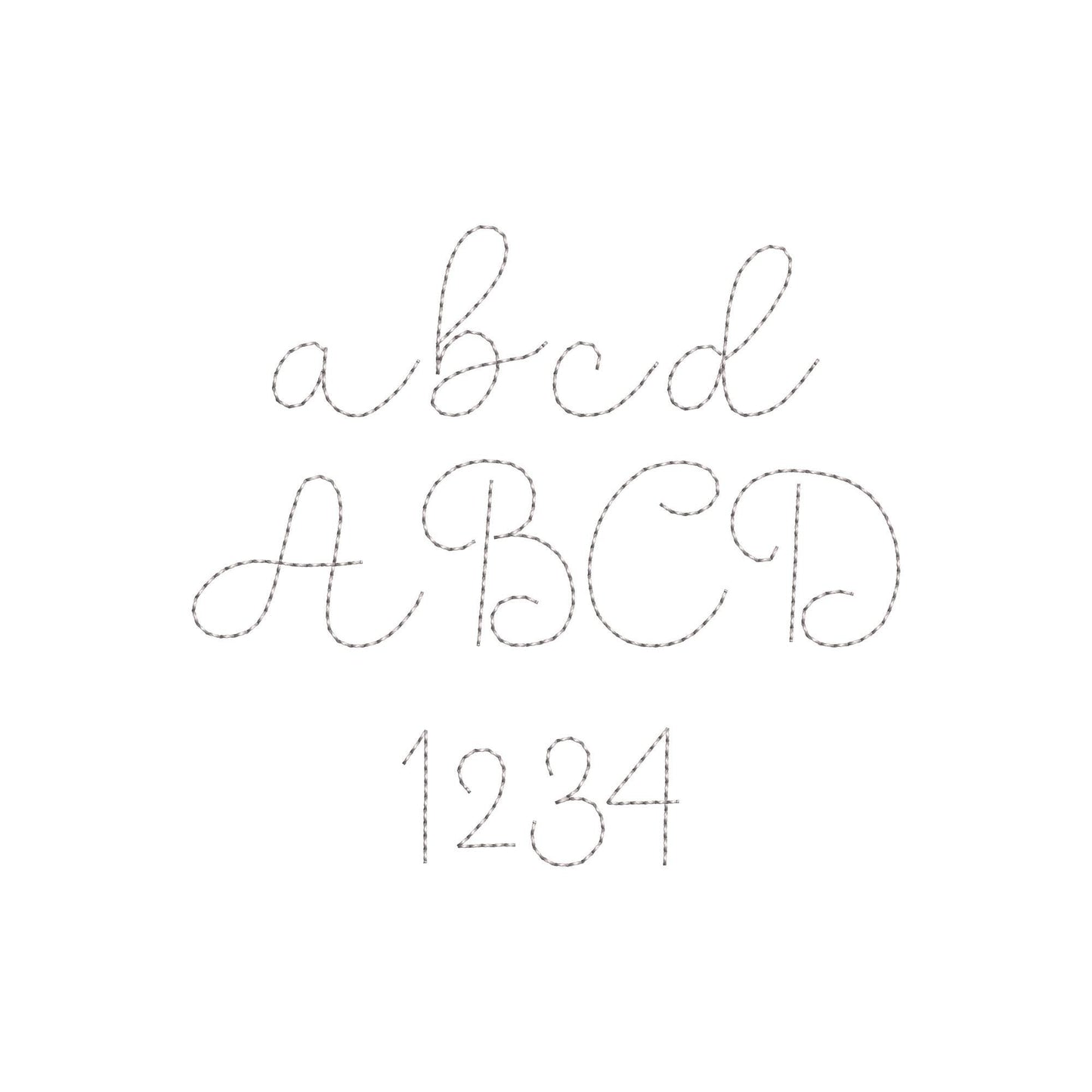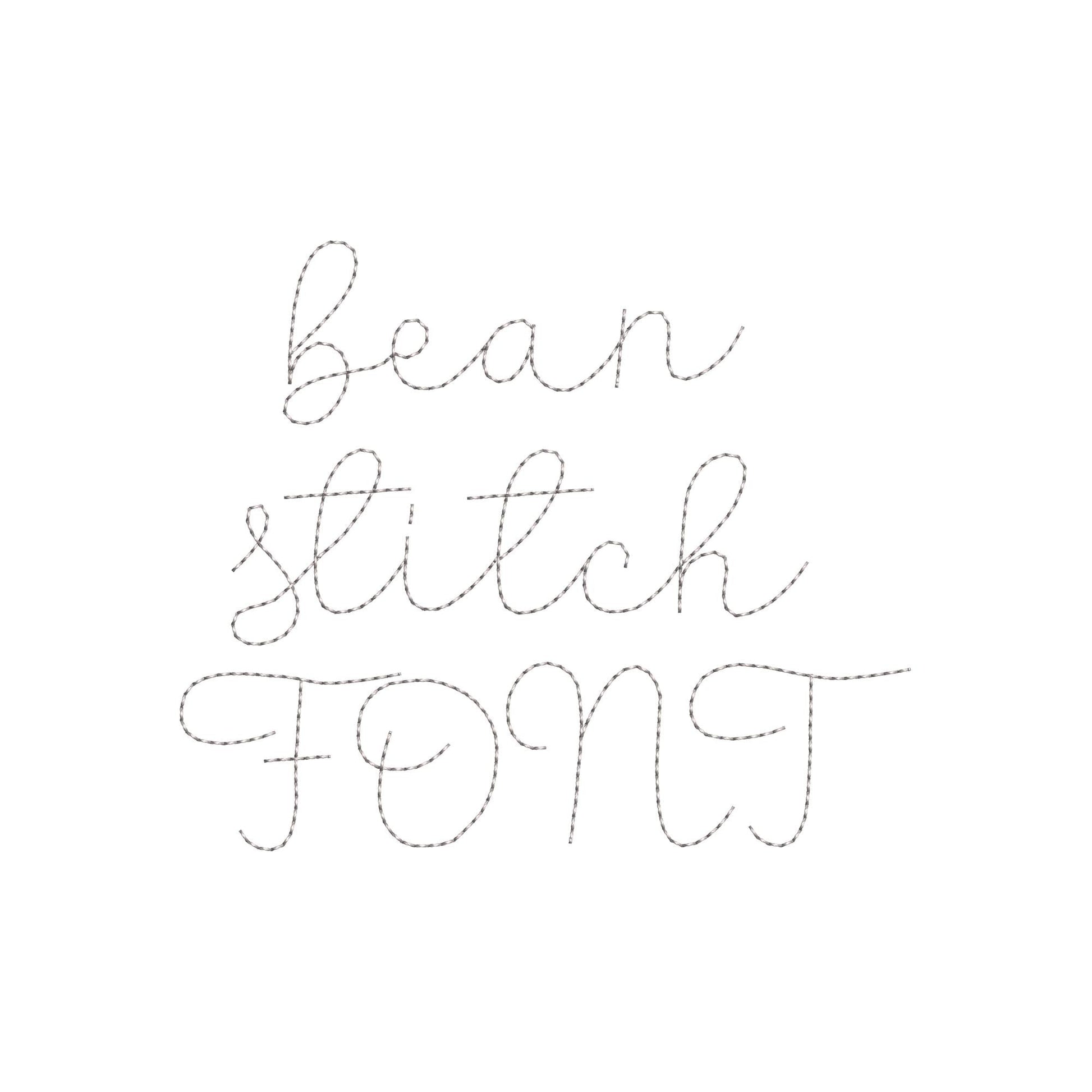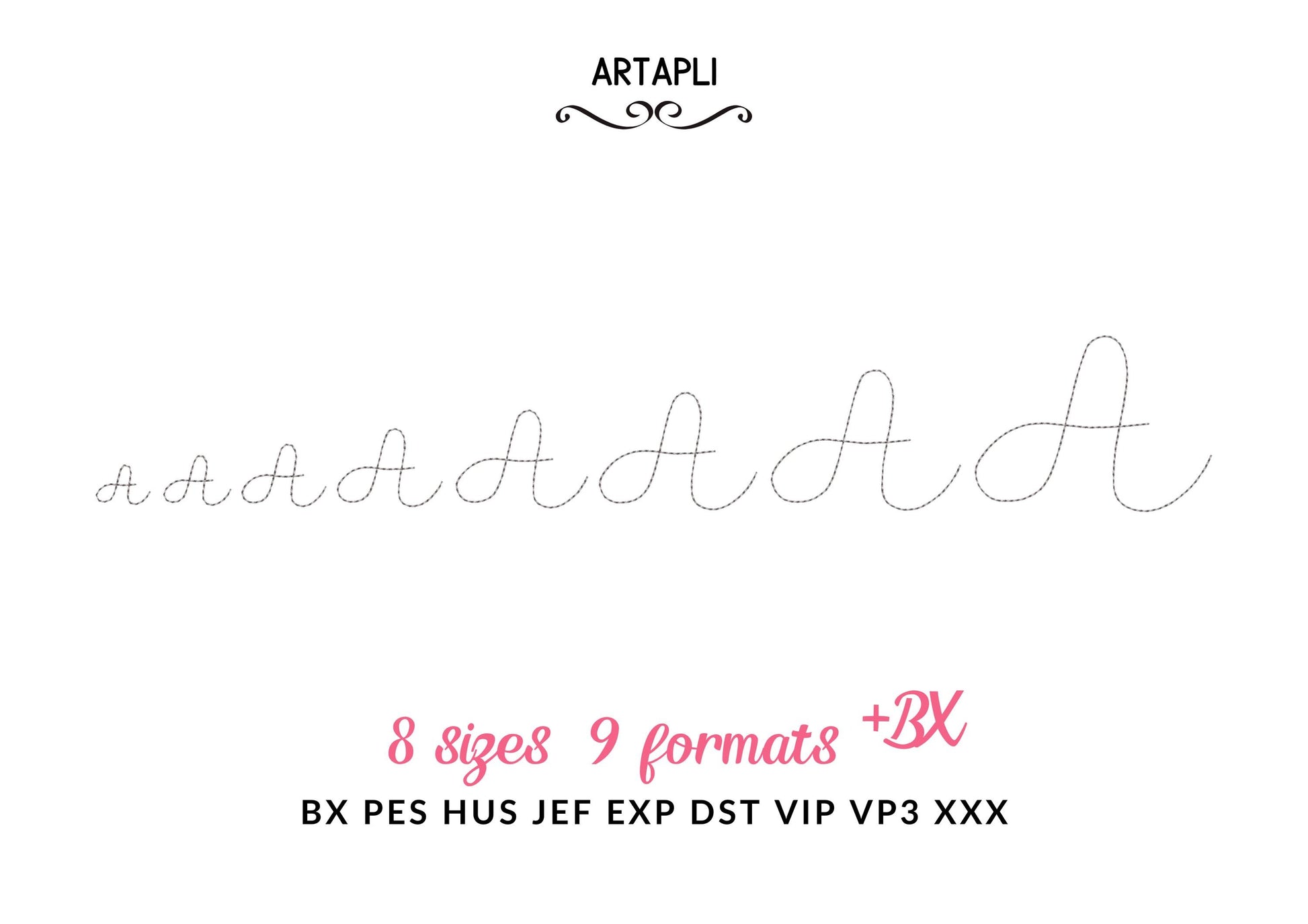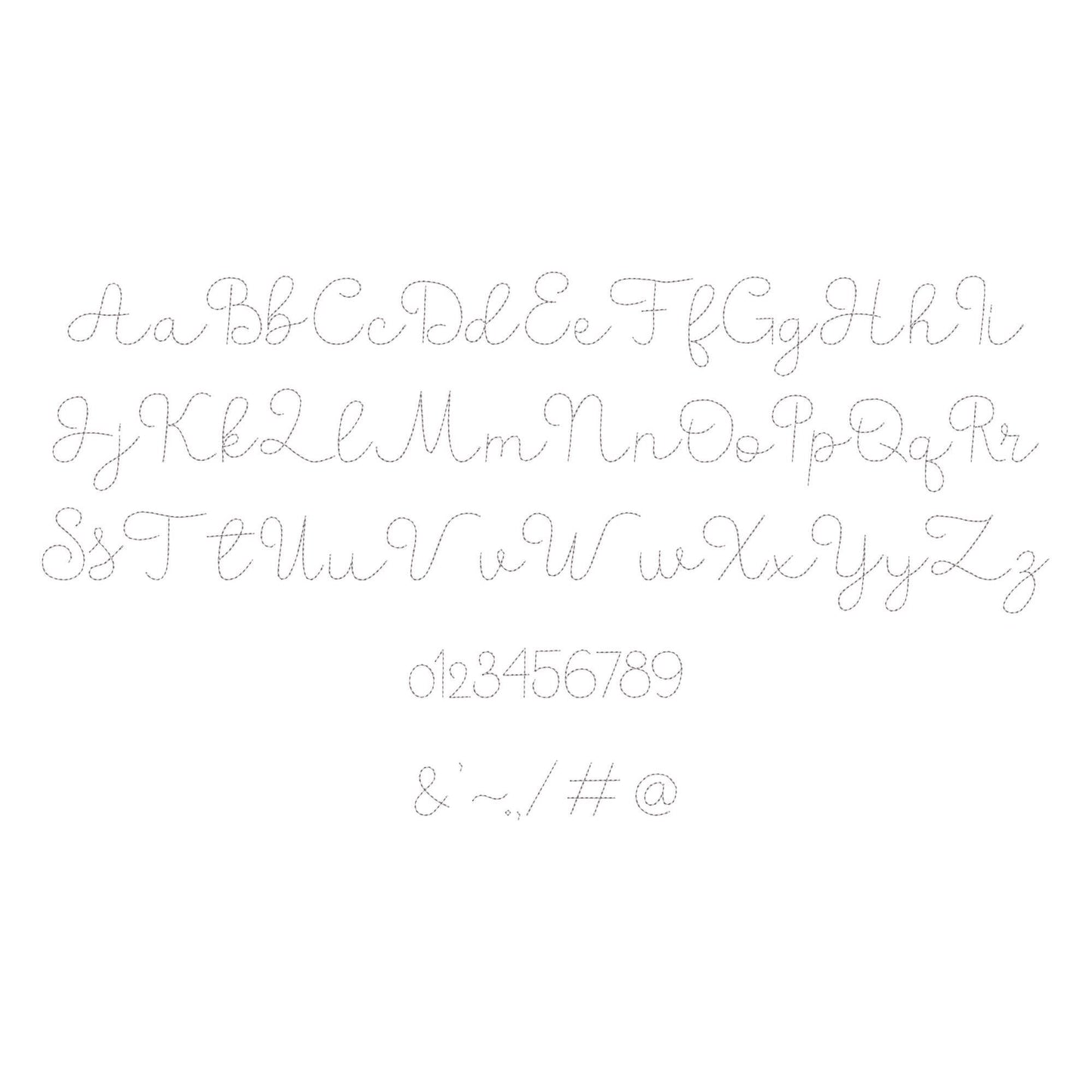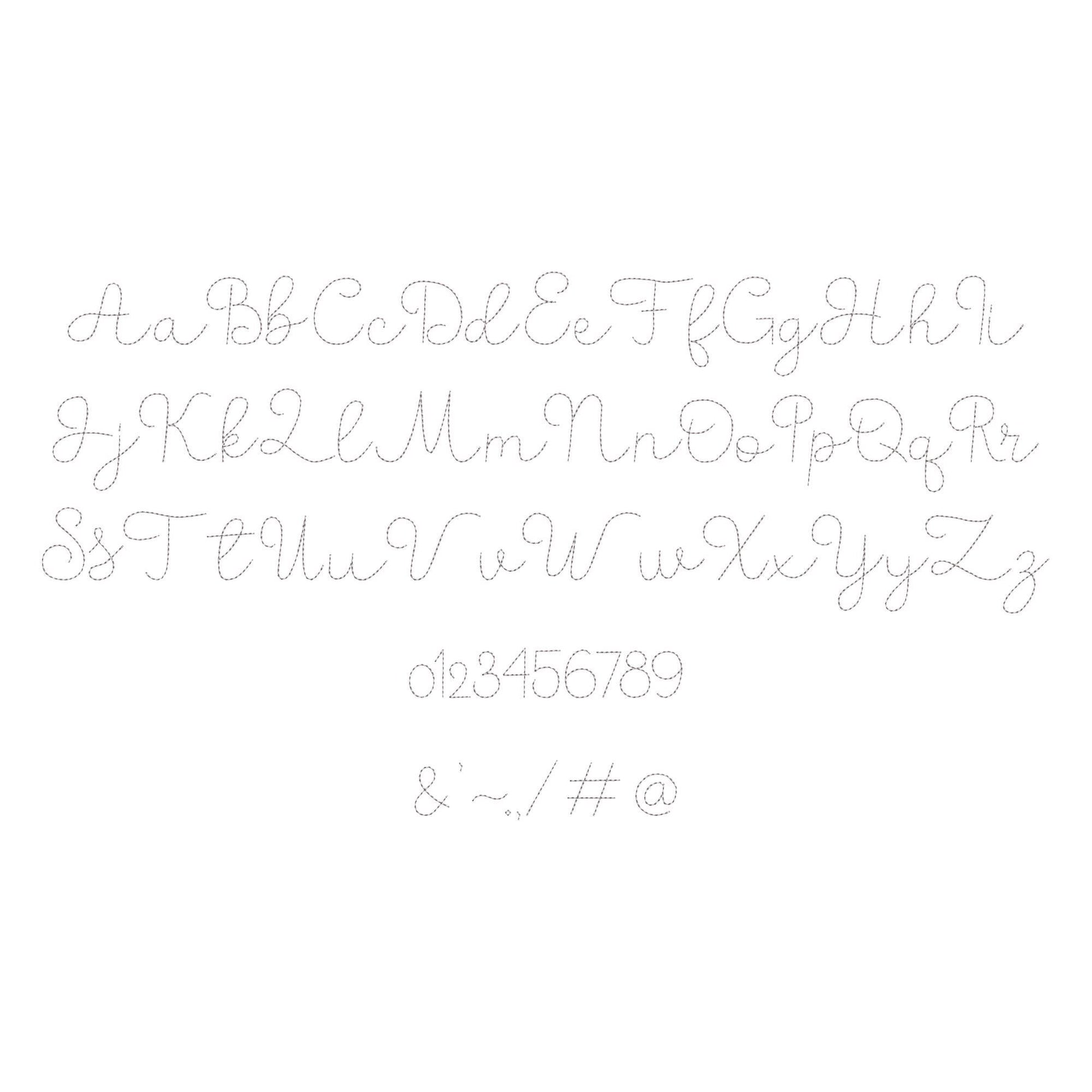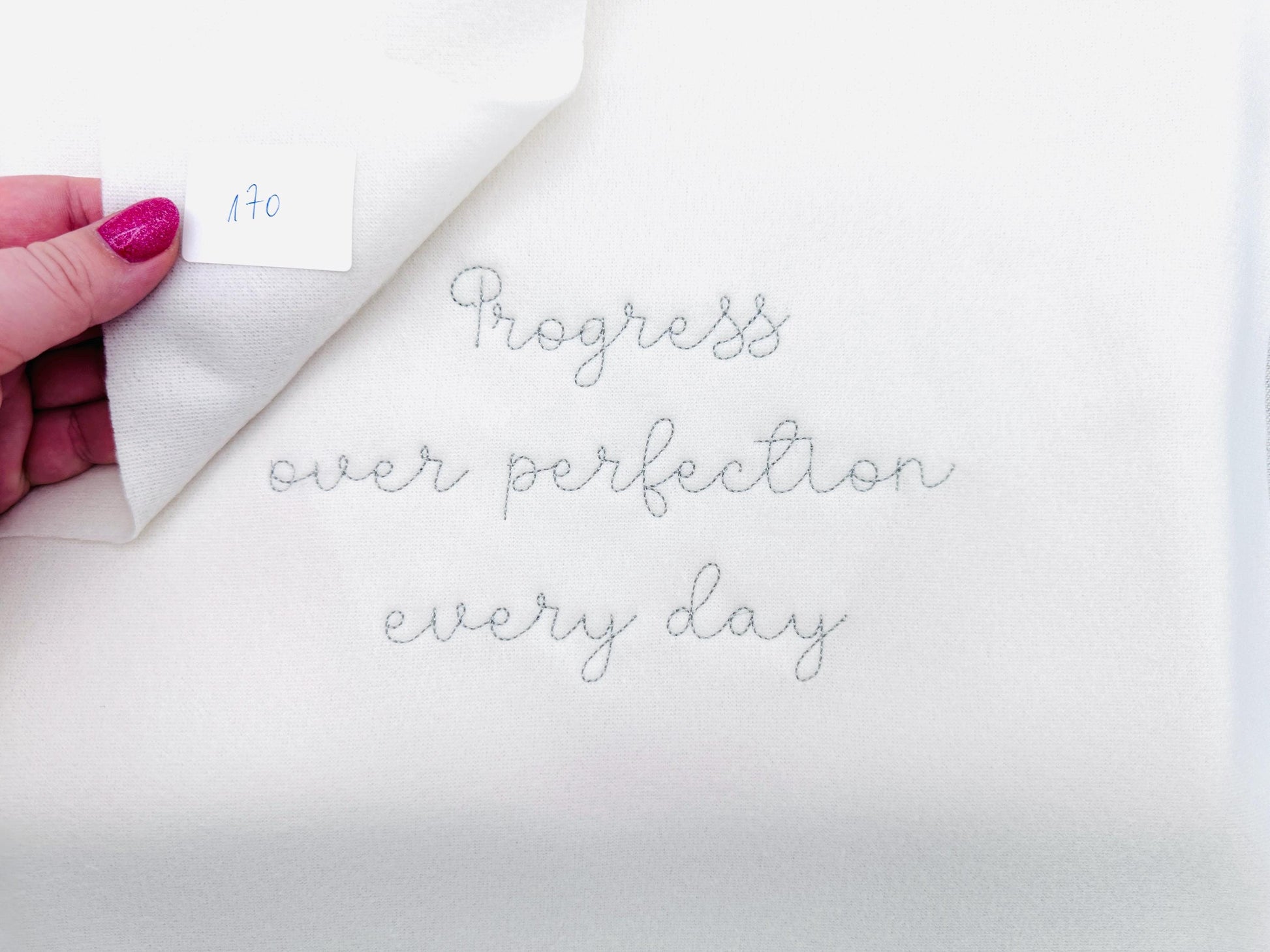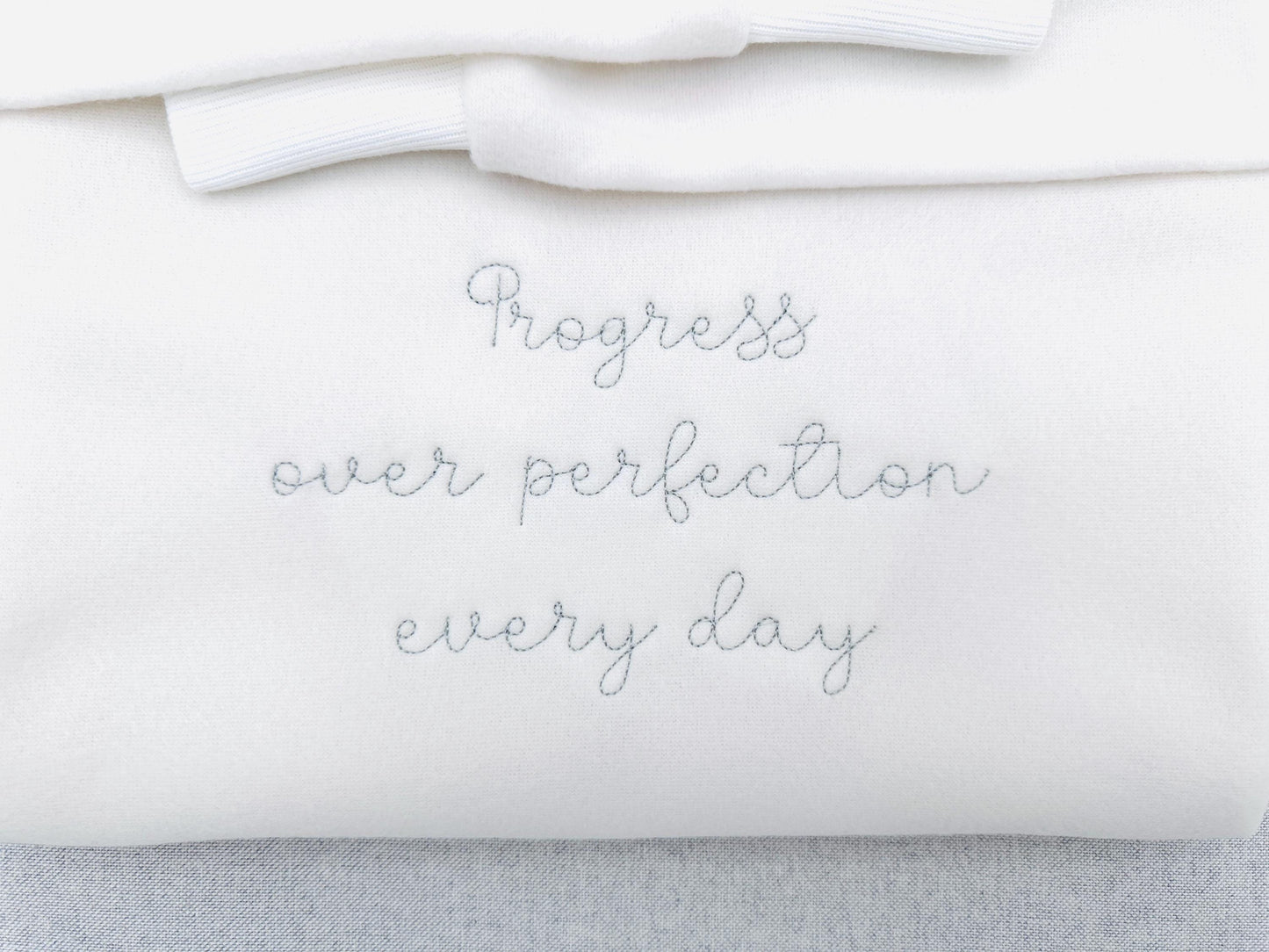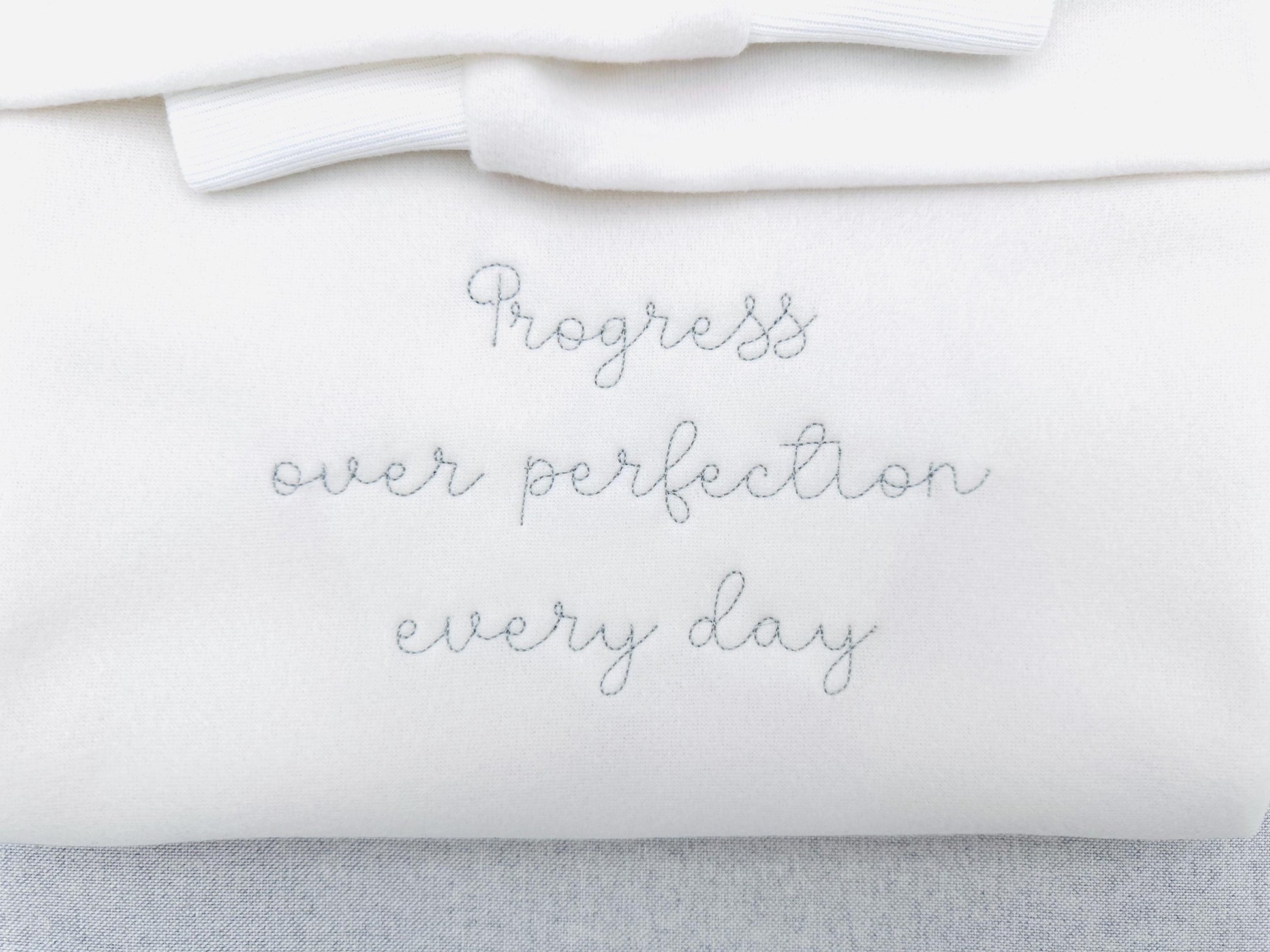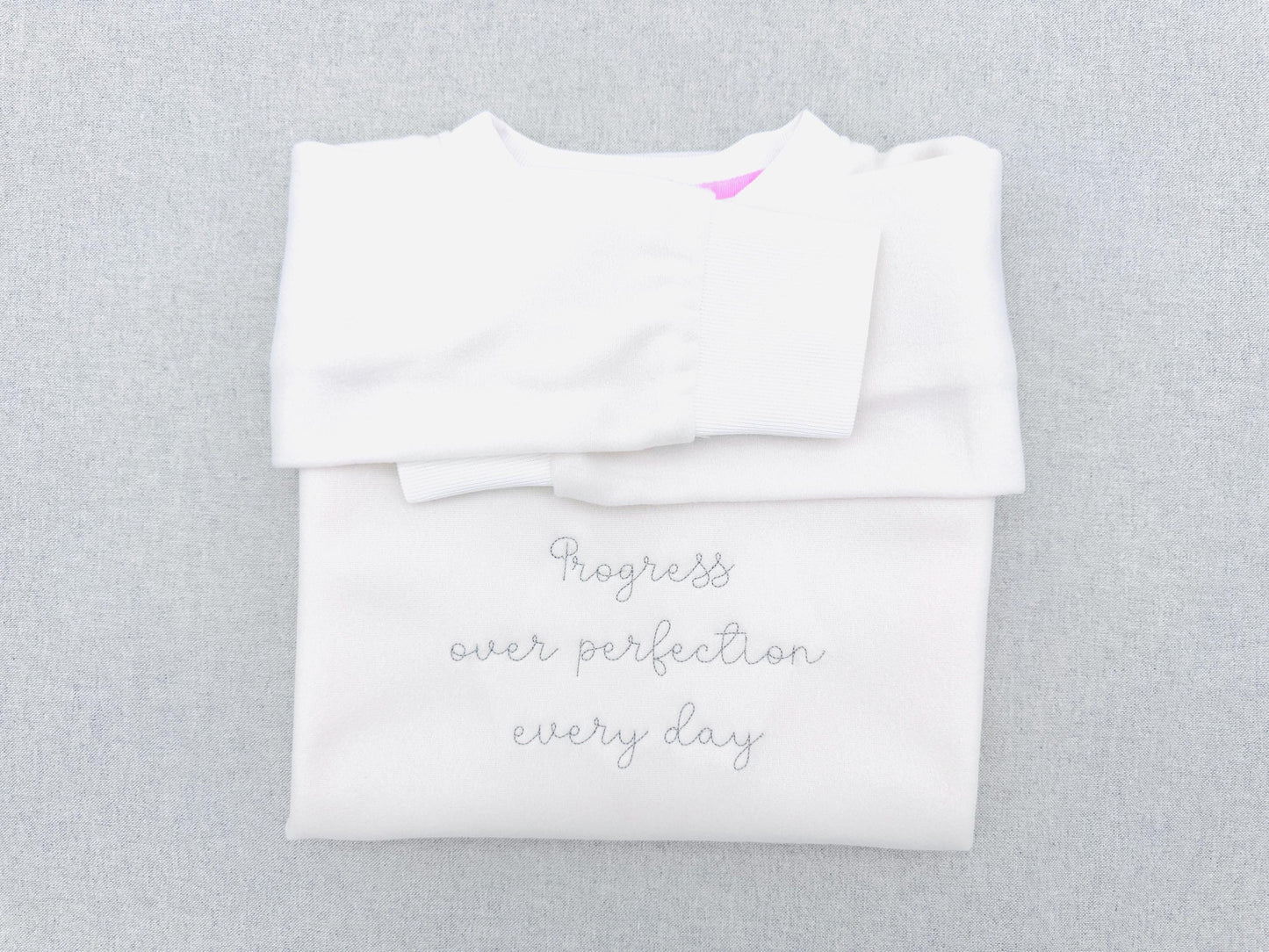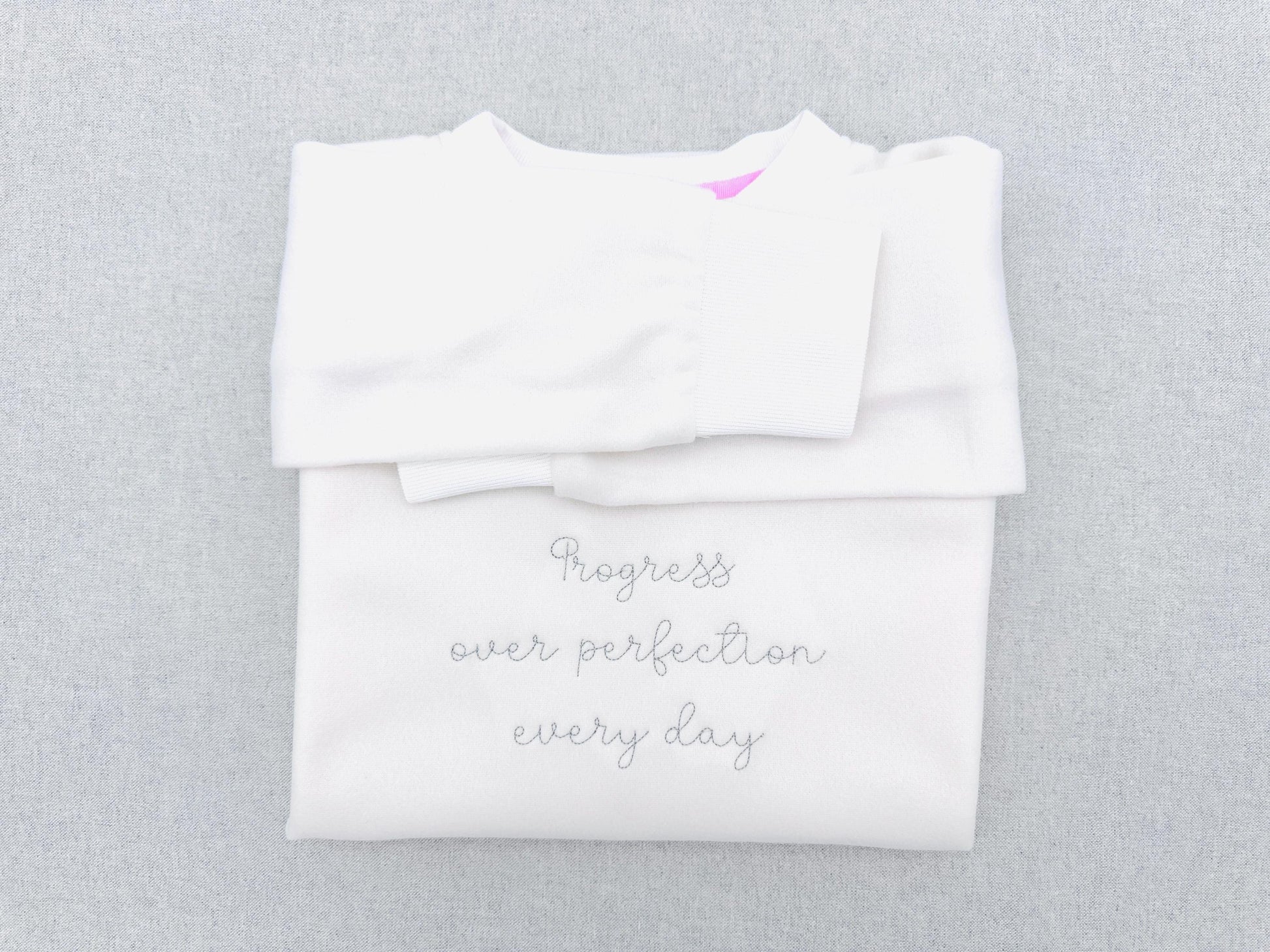
Script Font Butter Bean
Or click to open the linkButter Bean is a light handwritten script font in bean stitch. Lovely for names on baby blankets, towels, jackets, bags and small monograms.
Eight sizes: 0.5, 0.6, 0.8, 1, 1.2, 1.4, 1.7 and 2.2 inches. The alphabet has uppercase and lowercase letters A-Z, numbers 0-9 and punctuation. It looks best at the smaller sizes; at 1.7 and 2.2 inches the line looks thinner.
- Script bean stitch alphabet, uppercase and lowercase A-Z
- Numbers 0-9 and punctuation
- 8 sizes, 0.5 to 2.2 in